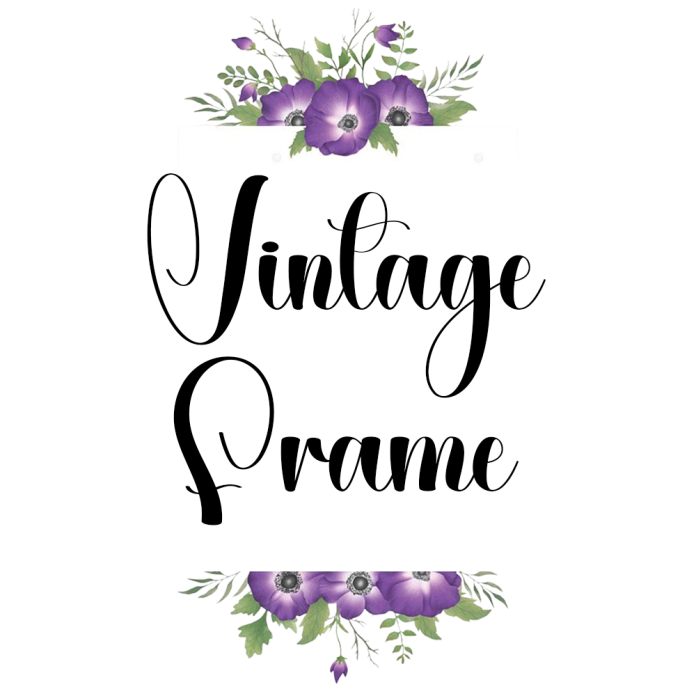
Vintage Frame Font
Vintage Frame Font is a simple and natural handwriting font.
It is great for branding, quotes, logos, t-shirt designs, tote bag designs, cards, banners, social media, and more.